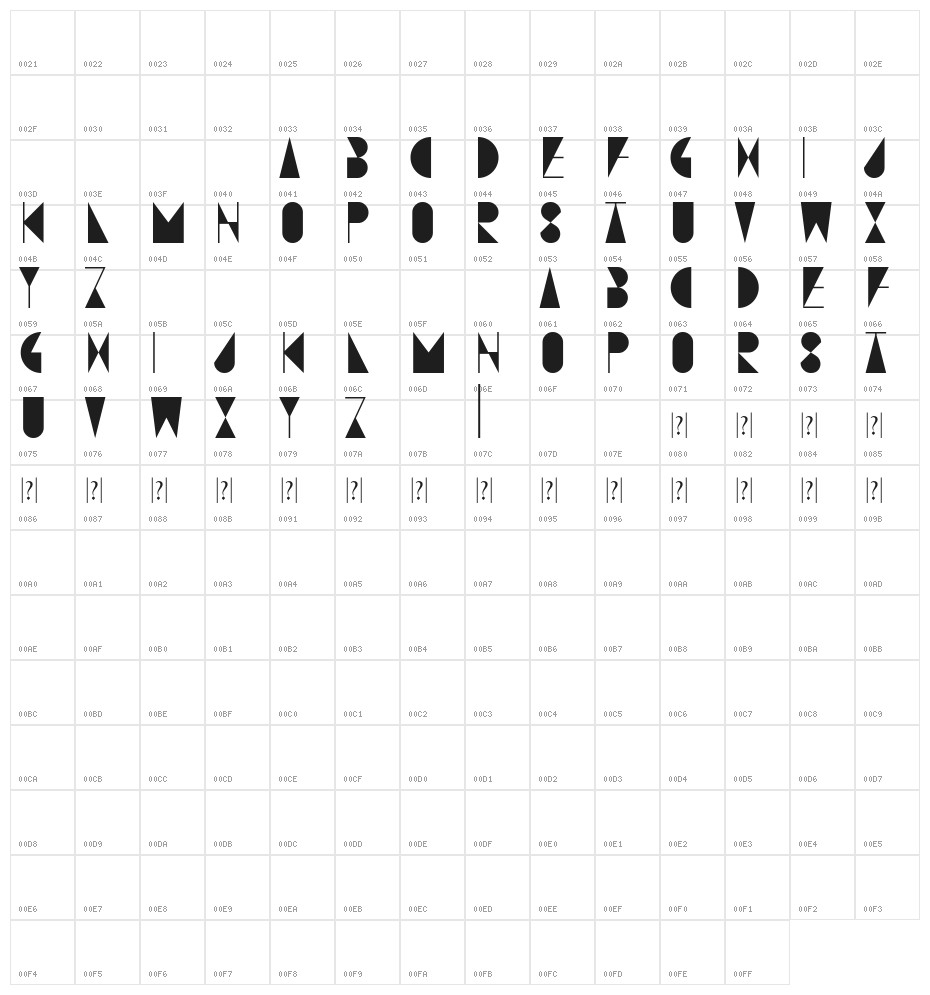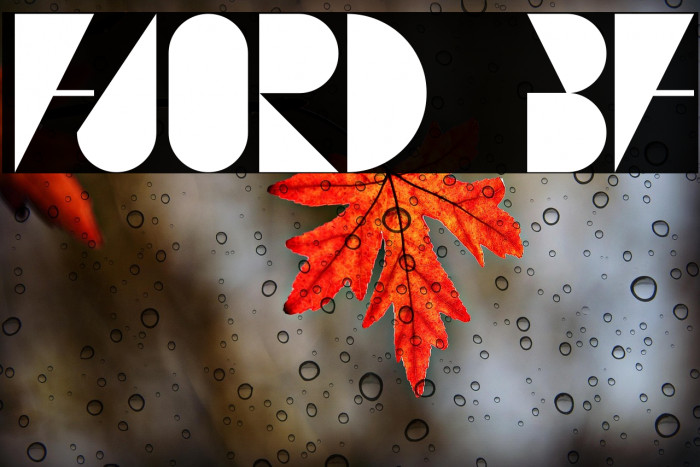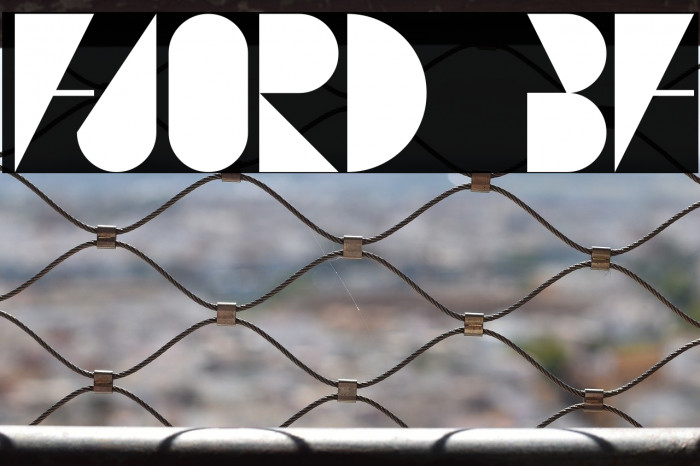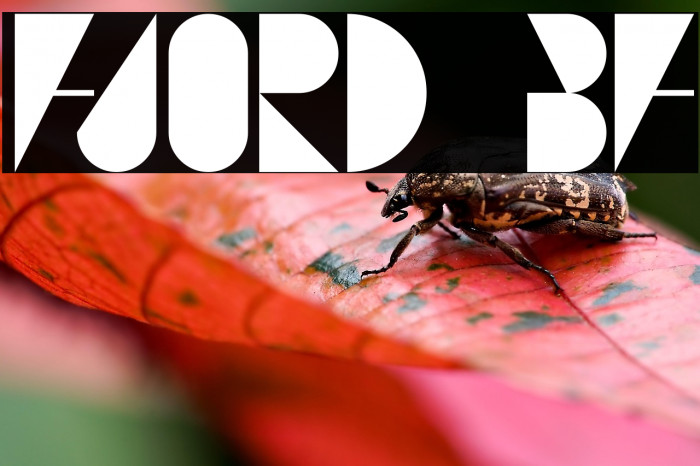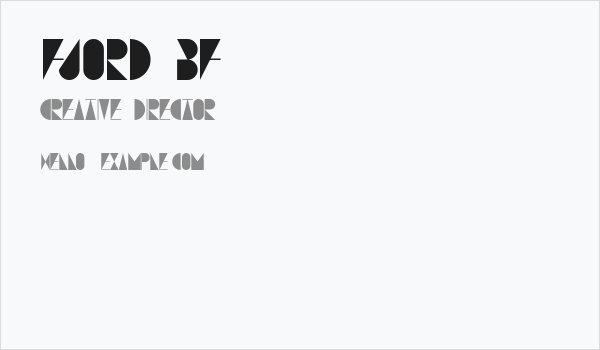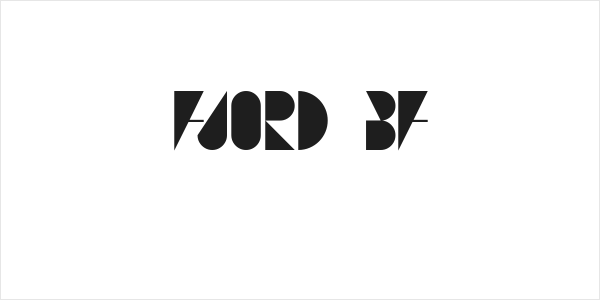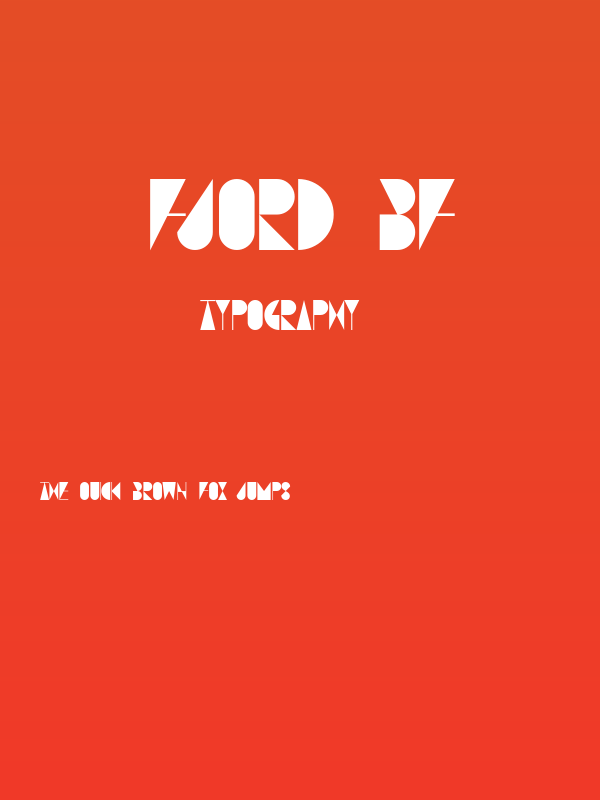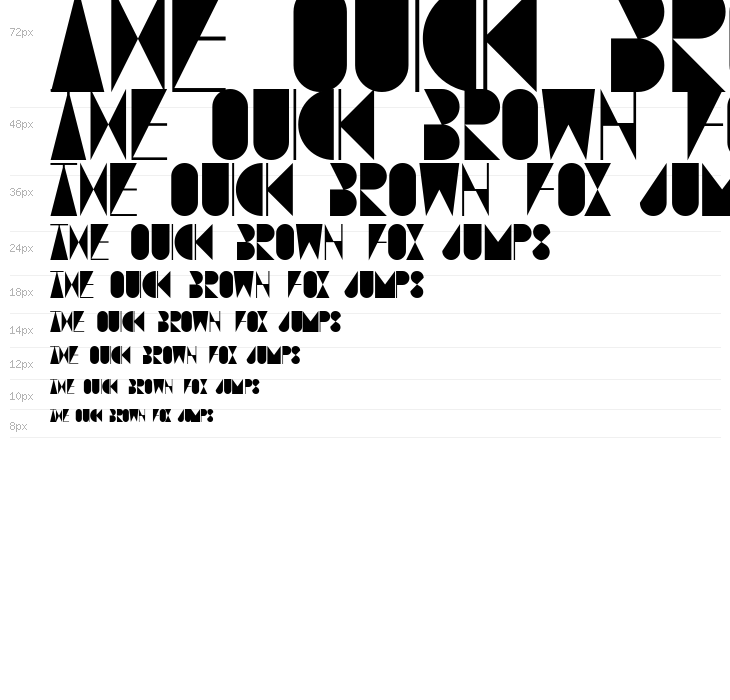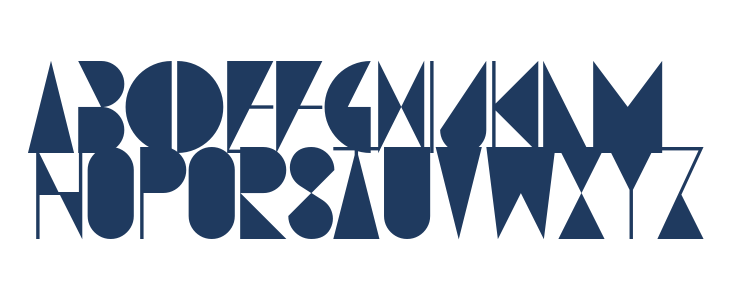
FJORD BF Font
FJORD BF Description
This font features a bold and geometric design, characterized by its use of sharp angles and circular forms. Each letter is crafted with a strong emphasis on symmetry and balance, creating a visually striking appearance. The uppercase letters are particularly notable for their use of solid shapes and negative space, resulting in a modern and artistic look. The font's unique style makes it stand out, with its bold lines and geometric patterns offering a sense of modernity and creativity. It is well-suited for projects that require a distinctive and eye-catching typeface.
| Proposed Projects | Ideal for branding, posters, album covers, and modern art projects. |